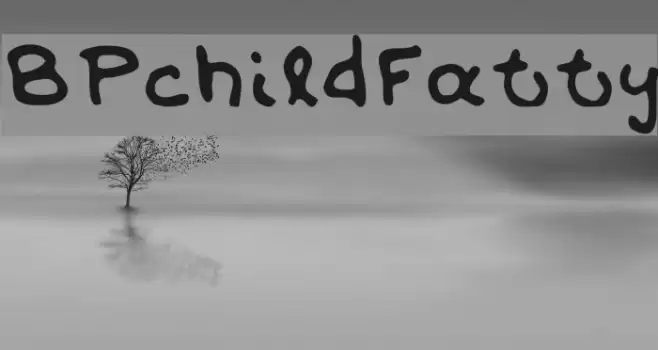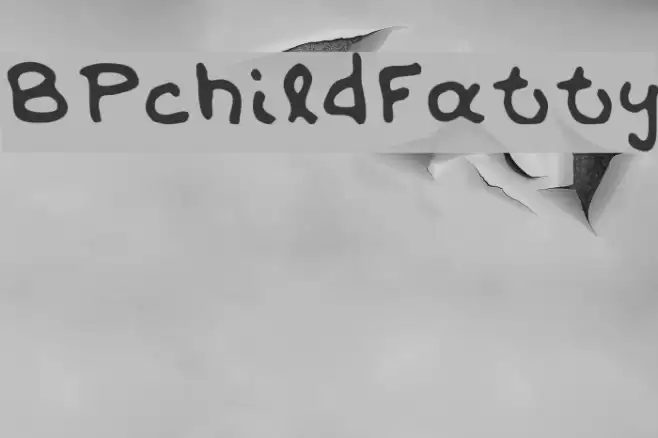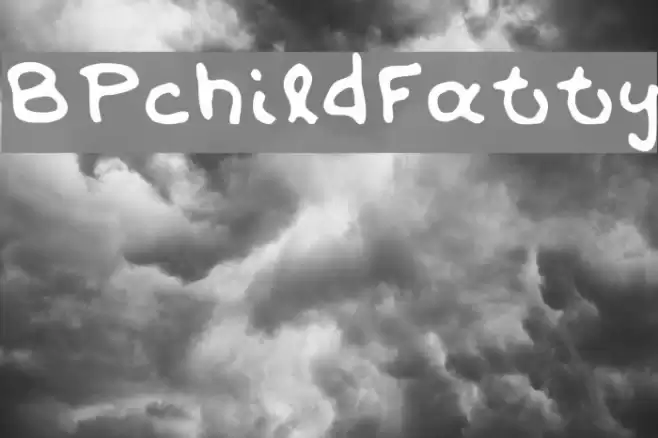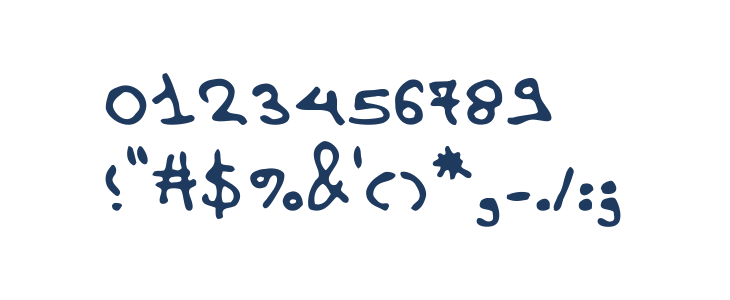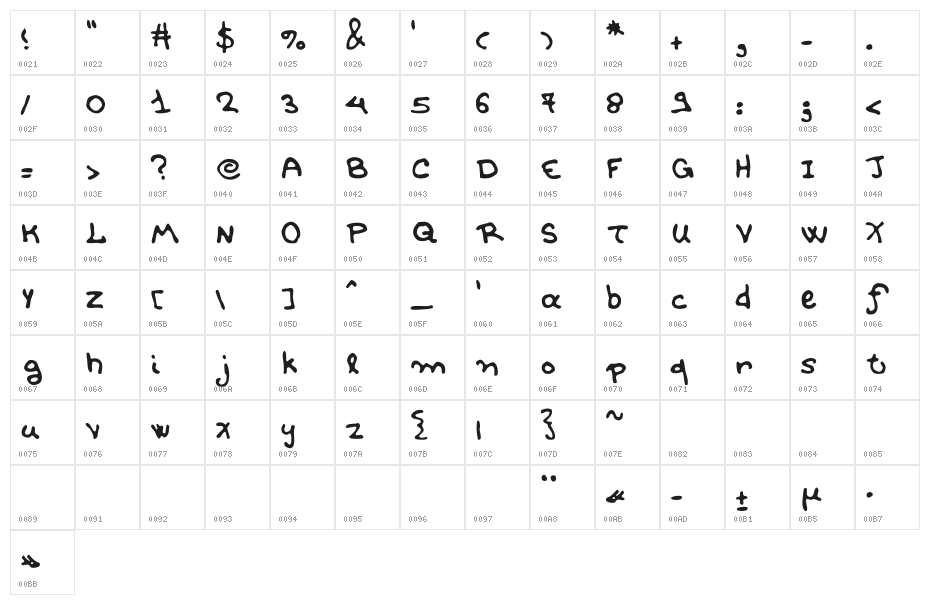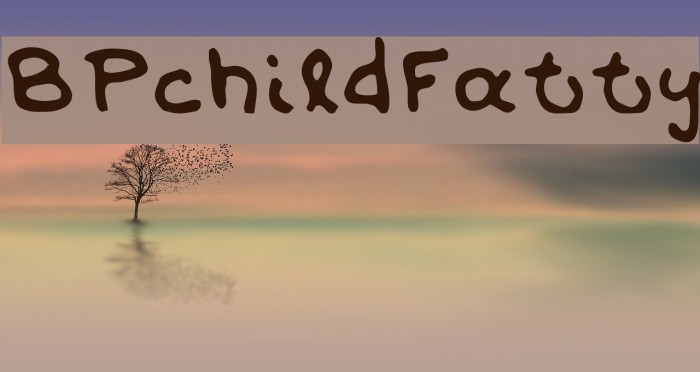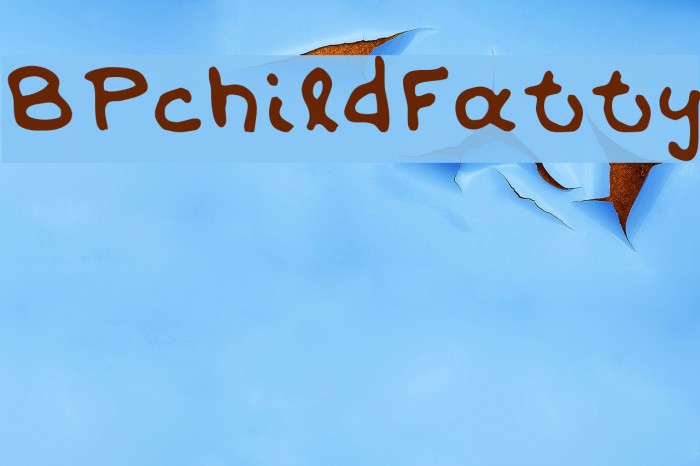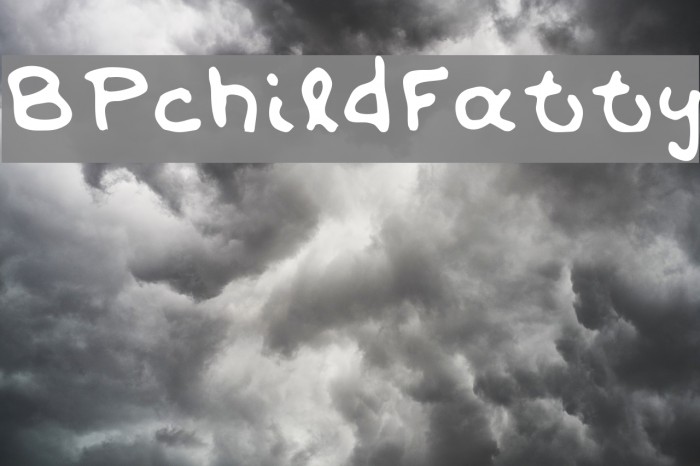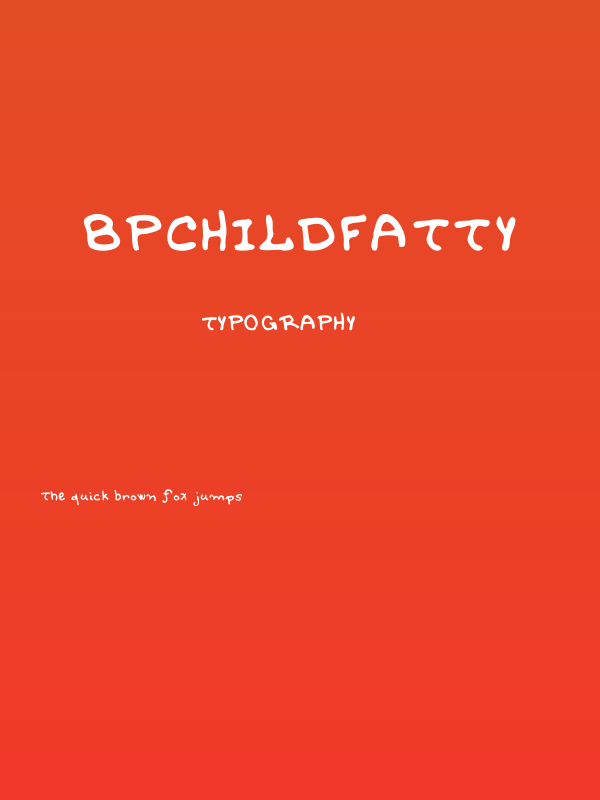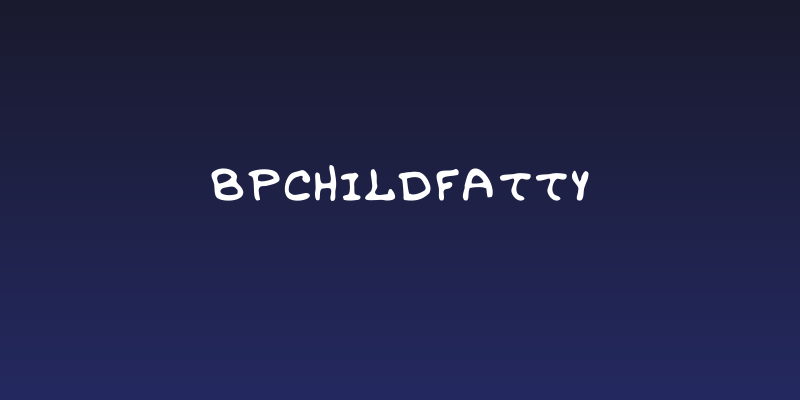
BPchildFatty Font
BPchildFatty Description
This playful and whimsical font features a handwritten style with a bold, rounded appearance. Each character is crafted with a slightly uneven stroke, giving it a childlike and informal feel. The letters are thick and have a consistent weight throughout, which adds to the font's friendly and approachable nature. The spacing between characters is relatively tight, enhancing the cohesive look of the text. This font's unique charm makes it suitable for projects that aim to convey a sense of fun and creativity.
A playful, bold handwritten font with a childlike charm from Uncategorized fonts.
- Proposed Projects: Ideal for children's books, playful branding, greeting cards, and educational materials.
- Character Spacing: Tight
- Overall Style: Playful
- Use Case: Headlines, Logos, Informal Text